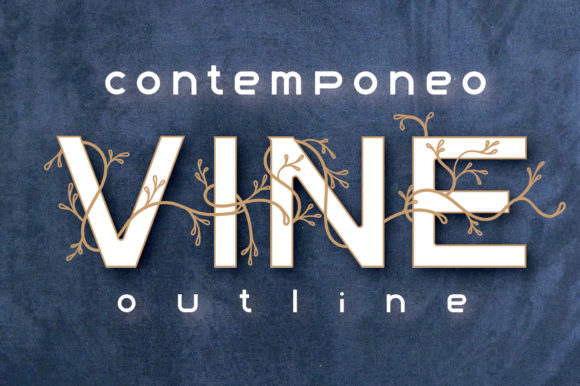
Step into the realm of captivating storytelling with Vine Font, the ultimate font for fiction enthusiasts. Dive into a world where words dance and emotions bloom, carried by the strokes of this enchanting decorative font. Let your imagination soar as you craft tales that resonate with readers, leaving them spellbound and eager for more.
Vine Font is not just a font; it's an artistic gateway to a world of limitless possibilities. Whether you're a seasoned author seeking to elevate your storytelling or a budding writer embarking on your literary journey, this font is your trusted companion. Watch as your characters come alive, their voices distinct and personalities rich, thanks to the expressive nature of Vine Font.
With Vine Font, crafting captivating titles and chapter headings becomes effortless. Its intricate details and elegant curves add a touch of drama and intrigue, drawing readers into your story from the very first page. The font's versatility extends beyond books, making it an excellent choice for posters, flyers, and social media graphics. Its ability to evoke emotions and create an immersive experience knows no bounds.
Immerse yourself in the world of Vine Font and let your creativity flourish. Its intricate details and stunning aesthetics will leave a lasting impression on your readers, turning your stories into unforgettable experiences. As you type each letter, feel the magic unfold, and witness the transformation of ordinary words into captivating tales.
Join the ranks of authors who have discovered the transformative power of Vine Font. Let your imagination run wild and create stories that linger in the hearts of readers long after they've finished reading. Embrace the beauty of words and let Vine Font guide you on an extraordinary literary adventure.